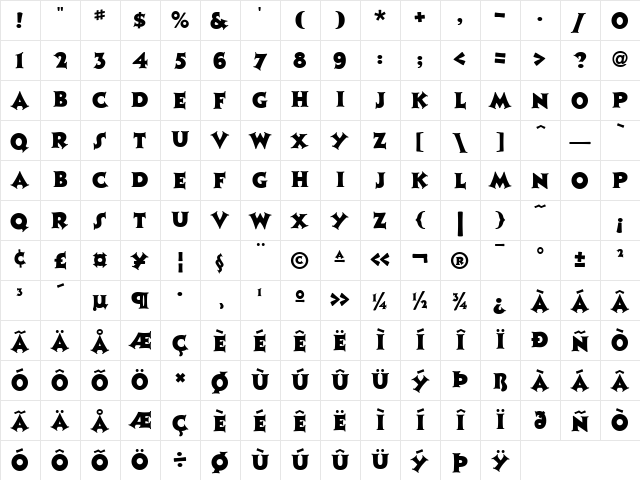
AshleyCrawfordICG Medium
Design Context for AshleyCrawfordICG
AshleyCrawfordICG is a composed and adaptable typeface that performs quietly and consistently across a wide range of design contexts.